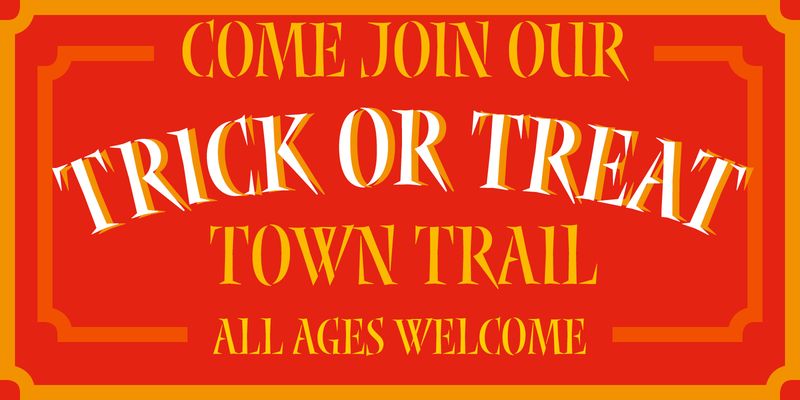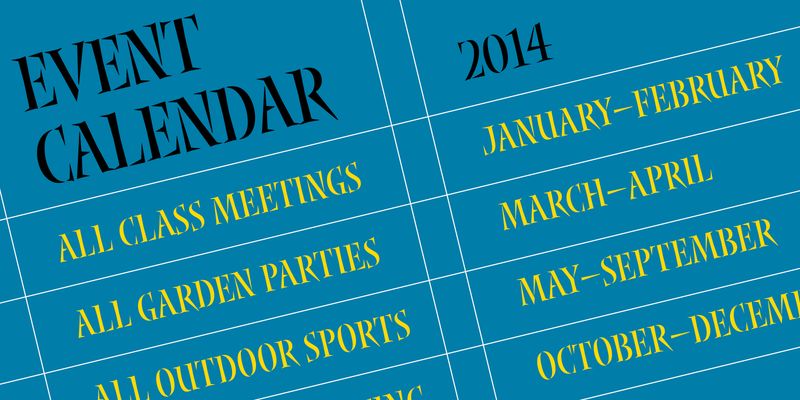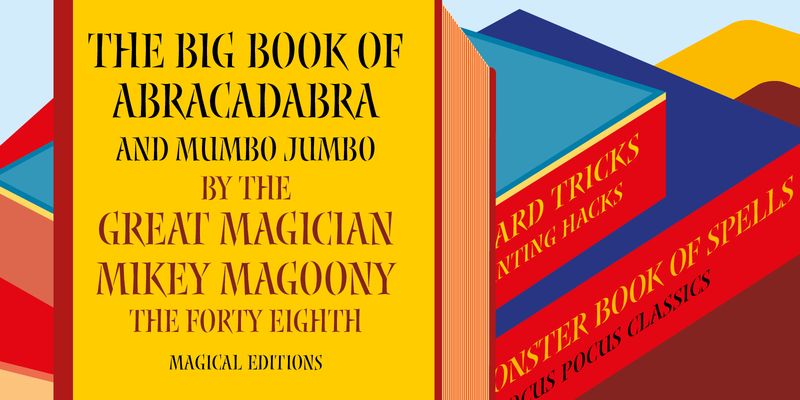
Nyx is a stencil typeface designed by lettering artist Rick Cusick and named after the designer’s muse: the Greek goddess of night. Classic roman capital forms underlie its sharp, energetic surface. Nyx first began to take shape as hand lettering on the artist’s New Year’s greeting card. Later it appeared in several art exhibits of Cusick’s work before it was digitized and refined on the computer. Gallant and spartan at once, Nyx infuses music CD liners, toys, games, and magazine titles with dash and daring.